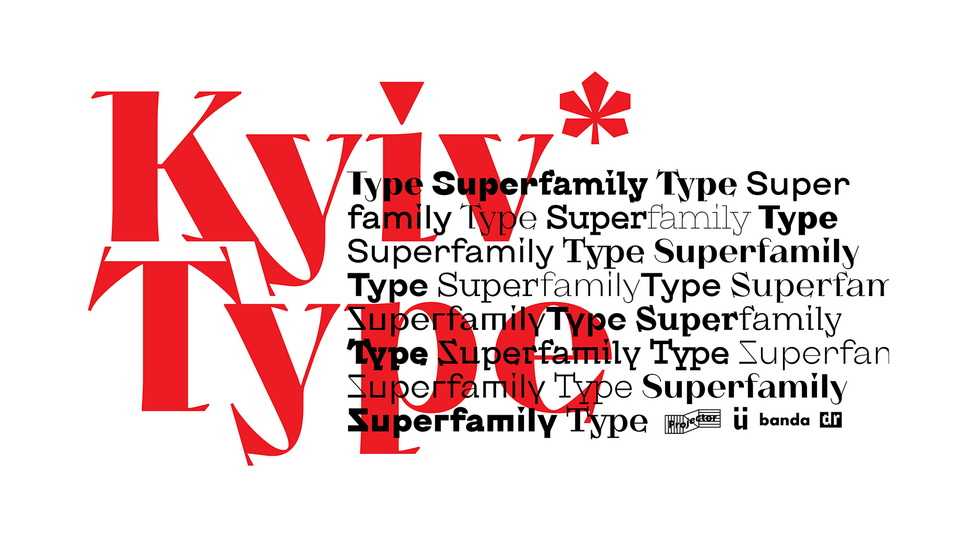
Download Kyiv Type typeface, a unique super font family designed for Kyiv city identification. It’s a variable font in 32 styles that allows you to create any combination and form.
Designer: Dmytro Rastvortsev